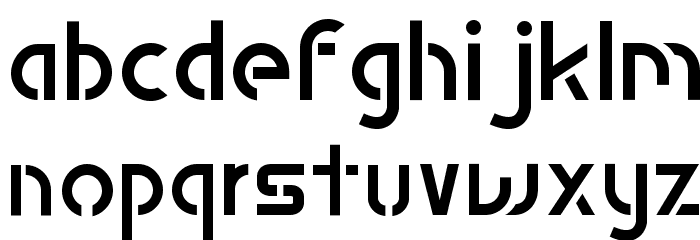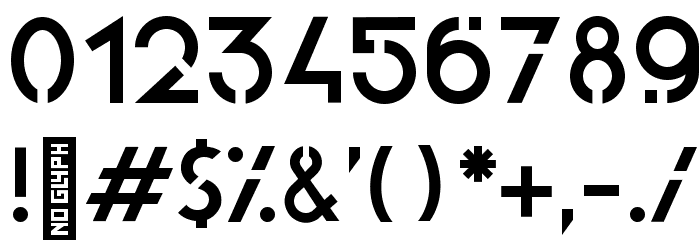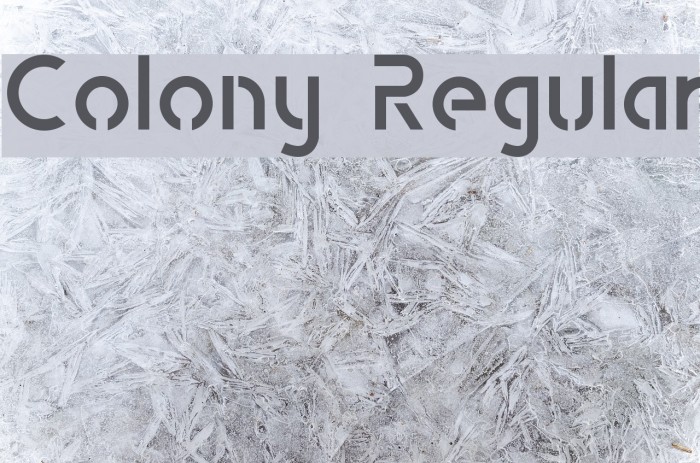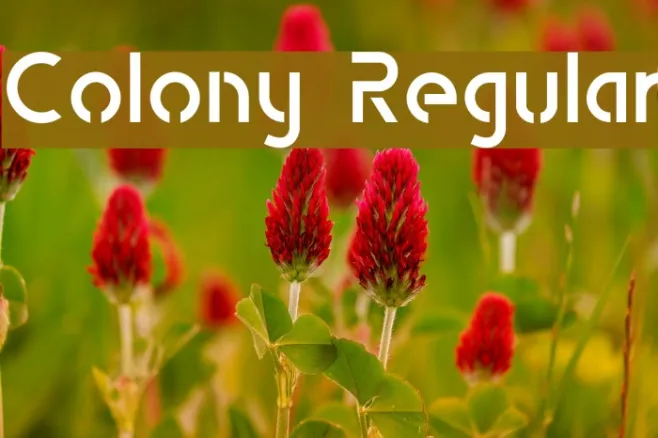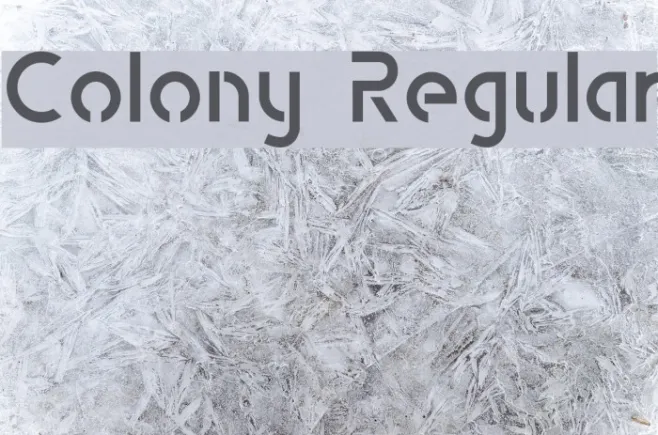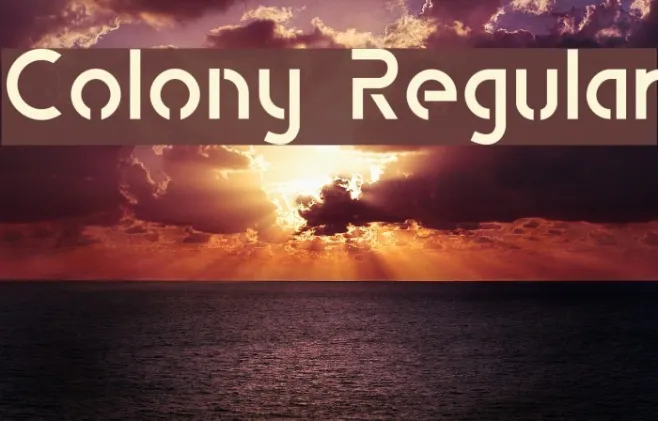
Colony Regular Font
This font features a futuristic and geometric design, characterized by its bold and angular letterforms. The uppercase letters are particularly striking, with sharp edges and a consistent stroke width that gives them a strong, impactful appearance. The lowercase letters maintain the geometric theme, with rounded elements that add a touch of softness to the overall design. The numerals are clear and distinct, making them easily readable. Special characters are designed with the same attention to detail, ensuring consistency across the entire typeface. This font's unique style makes it suitable for modern and tech-oriented projects.
- Proposed Projects: Ideal for technology branding, sci-fi themed designs, and modern advertising.